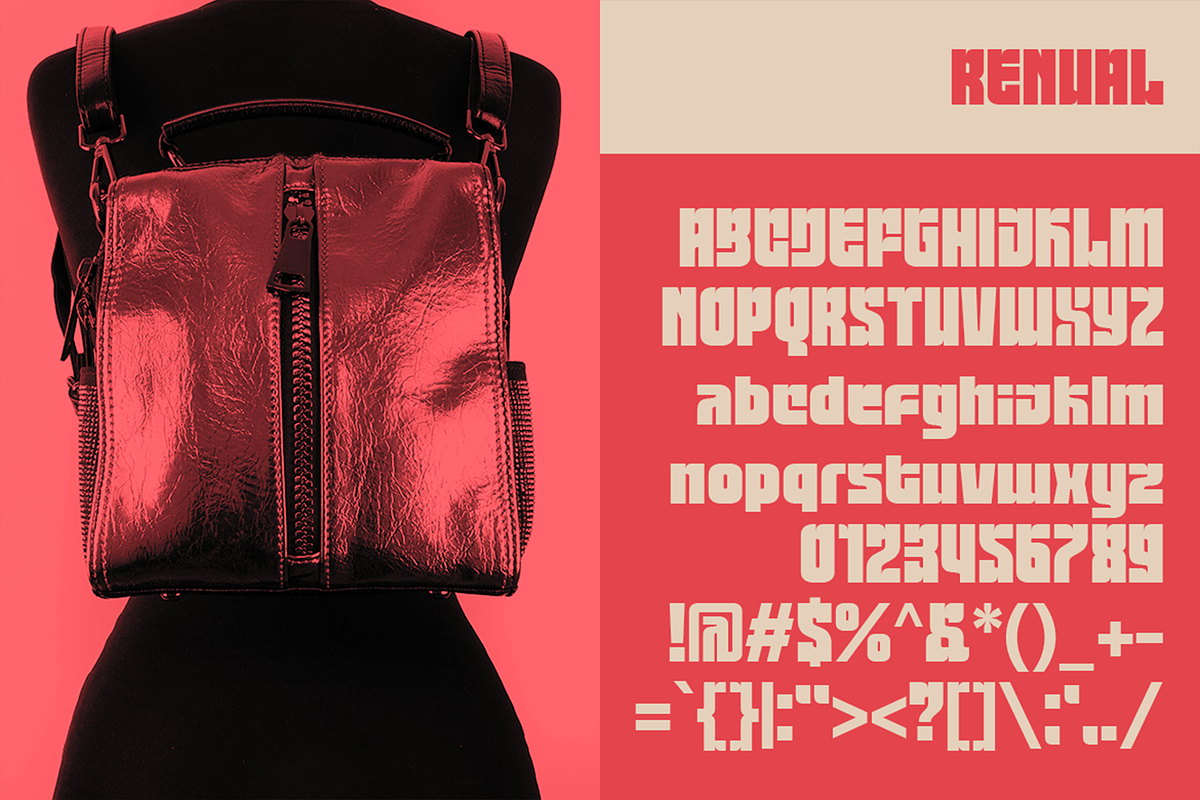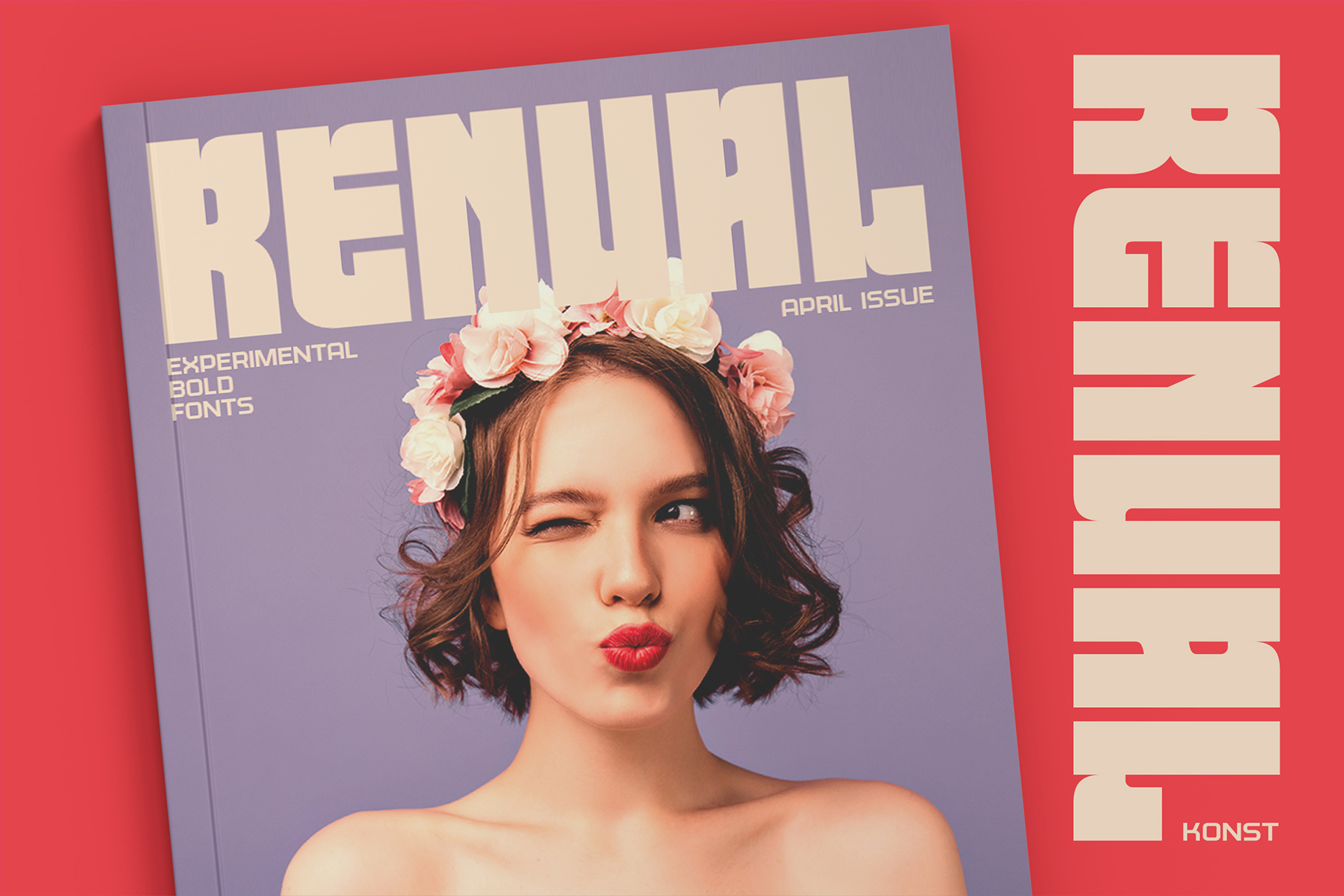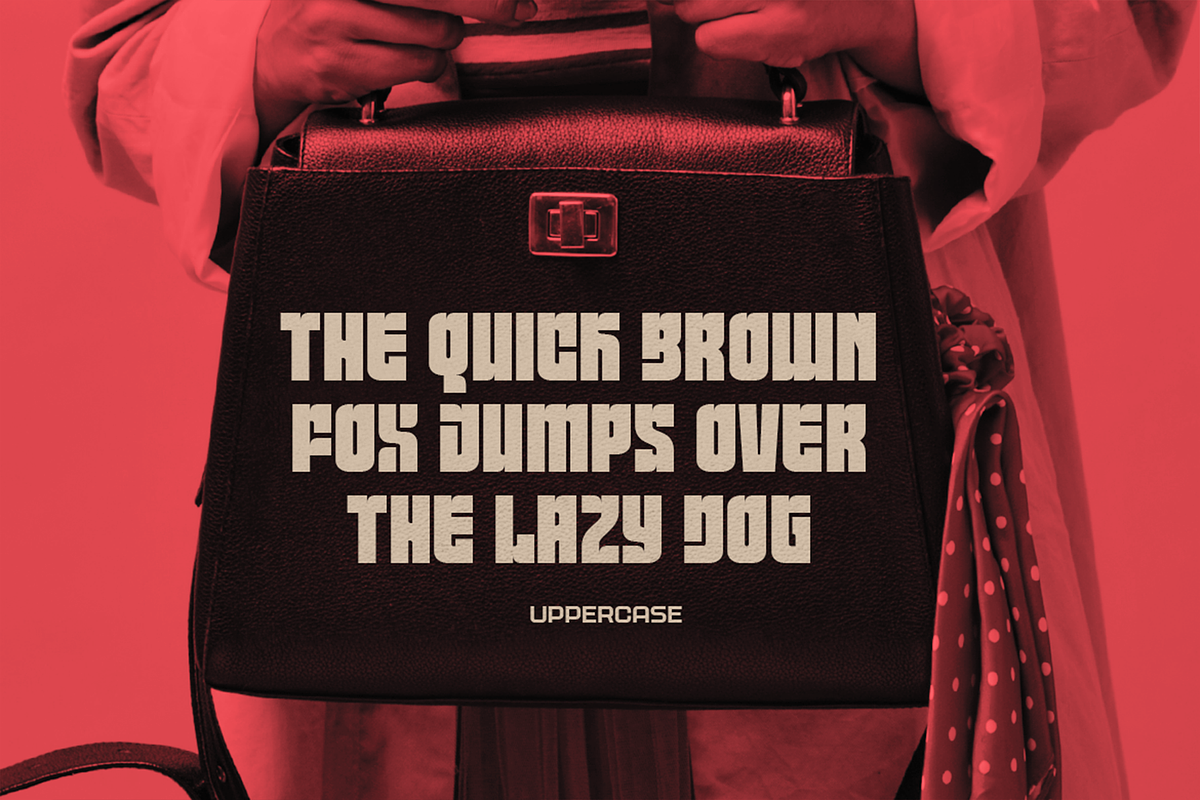
Renual - Contemporary Bold Fonts
Be bold, loud, and experimental with Renual! This unique font collection features styles you rarely see, perfect for:
- Urban posters
- Instagram branding
- Logos
- Magazine layouts
- Fashion lookbooks
- Album artwork
- Game design
- NFT projects
Stand out from the crowd and unleash your creativity with Renual—where your designs make a lasting impact!